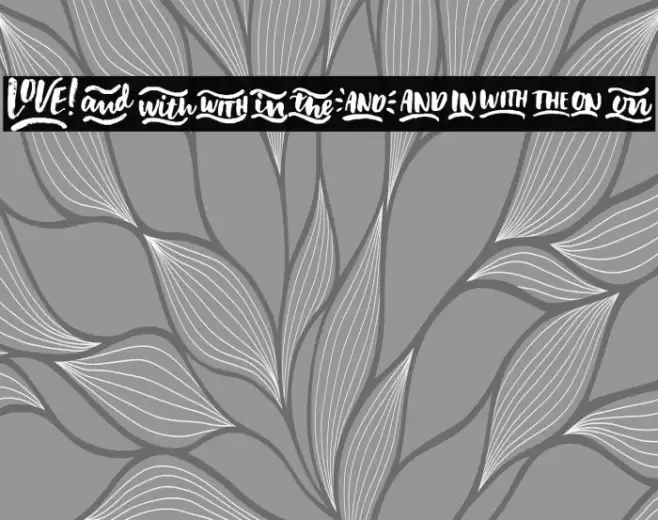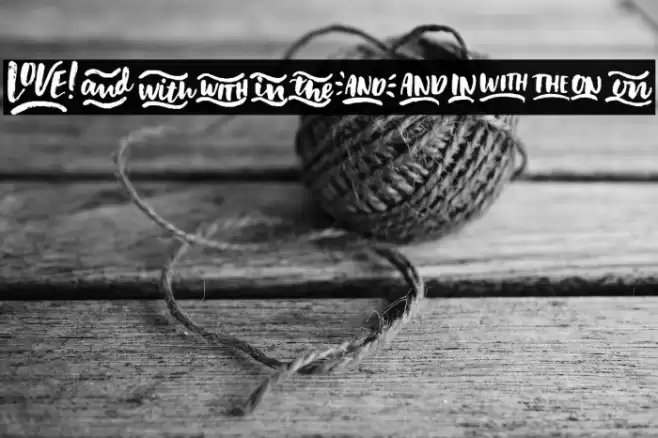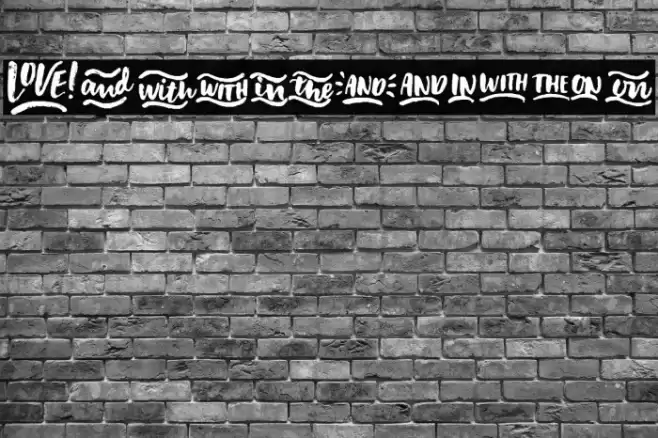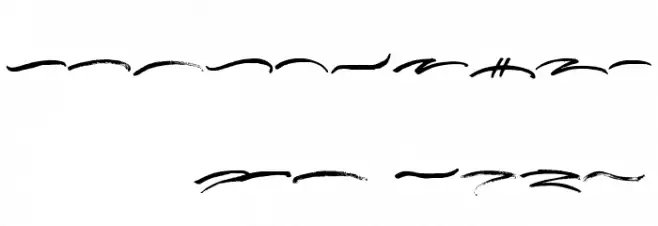
Beautiful Day Extras Font
Beautiful Day Extras Description
This collection features a playful and whimsical set of decorative elements, including hand-drawn arrows, crowns, hearts, stars, and various line embellishments. The style is casual and artistic, with a brush-like texture that adds a personal touch to each element. These extras are perfect for adding a fun and creative flair to any project. The elements include swirling lines, sun motifs, raindrops, and floral designs, all of which contribute to a lively and dynamic aesthetic. The overall feel is lighthearted and imaginative, making it suitable for a variety of creative applications.
A playful set of hand-drawn decorative elements with a whimsical, brush-like texture from Uncategorized fonts.
- Font: Beautiful Day Extras
- Proposed Projects: Ideal for scrapbooking, greeting cards, social media graphics, and creative invitations.
- Overall Style: Whimsical
- Use Case: Decorative embellishments